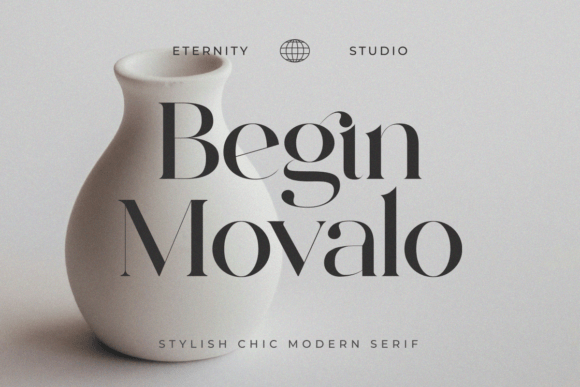
Introducing ET Begin Movalo Font: Elevate Your Designs with Stylish Chic and Modern Sophistication
In the world of typography, fonts play a crucial role in conveying the tone and aesthetic of a brand or creative project. With the vast array of fonts available, finding the perfect one that embodies both elegance and modernity can be a daunting task. However, if you’re looking for a typeface that seamlessly balances sophistication and trend-forward energy, look no further than ET Begin Movalo Font. In this article, we’ll delve into the features, benefits, and ideal uses of ET Begin Movalo, a stylish and chic modern serif font designed to elevate your creative projects.
What is ET Begin Movalo Font?
ET Begin Movalo is a modern serif font that boasts clean shapes, refined details, and a contemporary look. This typeface is meticulously crafted to bring a touch of sophistication and elegance to your designs, making it perfect for projects that demand a classy yet modern vibe. With its unique flair, ET Begin Movalo offers a versatile solution for designers seeking to create visually stunning and impactful work.
Key Features of ET Begin Movalo Font
- Clean Shapes and Refined Details: ET Begin Movalo features clean, geometric shapes and refined details that contribute to its sophisticated and modern appearance.
- Contemporary Look: The font’s contemporary design ensures that your projects look fresh and up-to-date, making it ideal for modern brands and creative endeavors.
- Elegant and Modern: ET Begin Movalo strikes the perfect balance between elegance and modernity, making it suitable for a wide range of applications.
- Unique Flair: Every character in ET Begin Movalo is crafted with a unique flair, ensuring that your designs stand out from the crowd.
Ideal Uses for ET Begin Movalo Font
ET Begin Movalo’s versatility makes it suitable for various creative projects. Here are some ideal uses for this stylish and chic modern serif font:
- Branding & Logo Design: Create a lasting impression with ET Begin Movalo’s elegant and modern design, perfect for logos and brand identities.
- Fashion Magazines & Editorial Layouts: Elevate your fashion publications with ET Begin Movalo’s sophisticated and trendy aesthetic.
- Wedding Invitations & Stationery: Add a touch of luxury and elegance to your wedding invitations, stationery, and other paper goods.
- Product Packaging & Luxury Labels: ET Begin Movalo is an excellent choice for product packaging and luxury labels, conveying high-end quality and sophistication.
- Social Media & Digital Graphics: Make your social media posts and digital graphics stand out with ET Begin Movalo’s modern and stylish design.
Benefits of Using ET Begin Movalo Font
By incorporating ET Begin Movalo into your creative projects, you can enjoy several benefits, including:
- Enhanced Visual Appeal: ET Begin Movalo’s elegant and modern design ensures that your projects look visually stunning and engaging.
- Increased Versatility: This font’s versatility makes it suitable for a wide range of applications, from branding and advertising to editorial and packaging design.
- Improved Brand Perception: ET Begin Movalo’s sophisticated and high-end aesthetic can help elevate your brand’s perception and reputation.
- Time-Saving: With ET Begin Movalo, you can save time searching for the perfect font, as this typeface offers a comprehensive solution for various design needs.
Tips for Using ET Begin Movalo Font Effectively
To get the most out of ET Begin Movalo, consider the following tips:
- Pair with Complementary Fonts: Combine ET Begin Movalo with complementary fonts to create visual interest and hierarchy in your designs.
- Experiment with Font Sizes and Weights: Take advantage of ET Begin Movalo’s versatility by experimenting with different font sizes and weights to create a unique visual identity.
- Use in Combination with Images: Pair ET Begin Movalo with high-quality images to create a visually stunning and engaging design.
ET Begin Movalo Font is a stylish and chic modern serif font designed to bring sophistication and trend-forward energy to your creative projects. With its clean shapes, refined details, and contemporary look, this typeface balances elegance and modernity perfectly. Whether you’re working on branding and logo design, fashion magazines and editorial layouts, or product packaging and luxury labels, ET Begin Movalo is an excellent choice. By incorporating this versatile font into your designs, you can elevate your work with chic elegance and timeless sophistication.